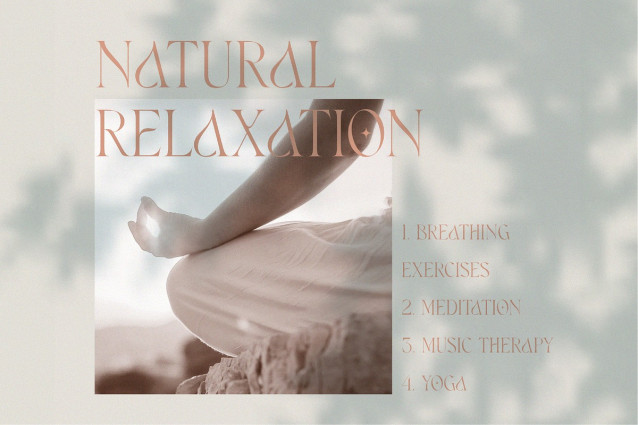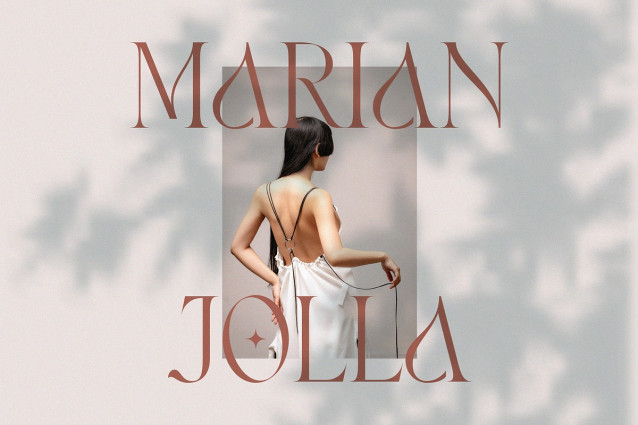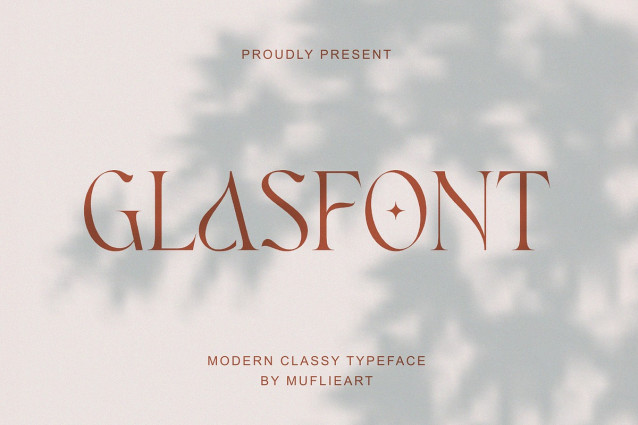
Glasfont Font A classy and modern serif typeface. With its modern and minimalist appearance, Glasfont brings a luxurious and clean style to your projects such as websites, modern logos, branding identities, social media quotes, wedding stationery and various other needs!